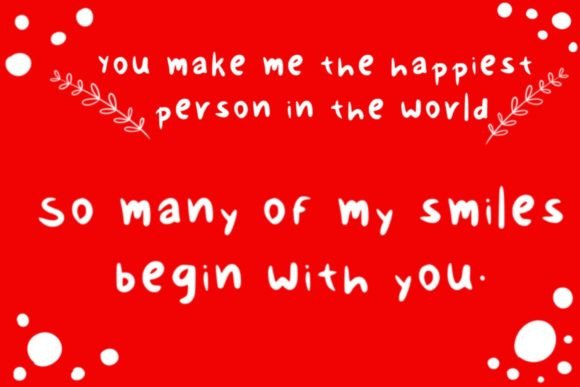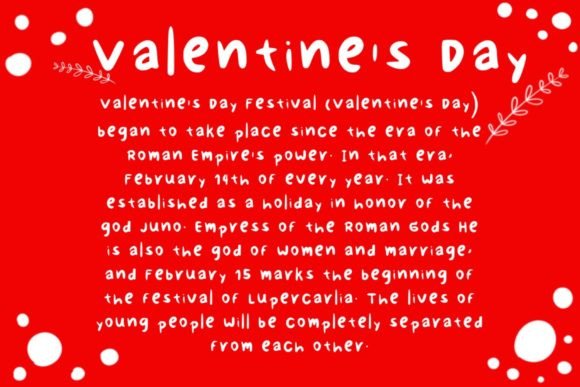
Introduction to Ppeach Font
Have you ever stumbled upon the perfect font while working on a creative project, and suddenly, the whole design comes alive? That’s exactly what happened to me when I discovered the Ppeach Font. Its unique, handwritten style immediately caught my attention, and I knew I had to learn more about it.
The Ppeach Font is a delightful and friendly script that exudes a personal touch. Its simplicity and hand-drawn design make it a valuable resource for designers, adding a warm and approachable feel to any project. Whether you’re crafting invitations, creating social media graphics, or working on a high-quality design, the Ppeach Font is sure to bring a touch of handwritten charm to your text.
With its transparent background and free download availability, the Ppeach Font is an excellent addition to any designer’s toolkit. In this article, we’ll delve into the world of this amazing font, exploring its features and uses, and discovering why it’s a must-have for any creative project.
Key Features of Ppeach Font
- Features a unique and elegant design, making it suitable for various design applications.
- Comes in a transparent background format, allowing for seamless integration into different design elements.
- Supports a wide range of languages, making it a versatile design resource.
Honest Review: Ppeach Font
I recently stumbled upon the Ppeach Font while searching for a high-quality font to use in a creative project. As a designer, I was excited to see what it had to offer.
After downloading the font for free, I was impressed with its smooth and elegant design. The Ppeach Font is perfect for any project that requires a touch of sophistication, and its transparent background makes it easy to work with.
Here are some of the things that work well with the Ppeach Font:
- ✨ Elegant and refined design that’s perfect for creative projects
- ✨ Smooth lines and curves make it a joy to work with
- ✨ Transparent background for easy layering and design flexibility
- ⚠️ Limited character set and support for certain languages
- ⚠️ Not suitable for projects that require a bold or playful font
Overall, I’m impressed with the Ppeach Font and would recommend it to designers looking for a high-quality, elegant font for their creative projects. With a little caution and planning, it can be a valuable resource in your design toolkit.
Design Resource for Your Creative Project
The Ppeach Font is a high-quality design resource perfect for any creative project. It’s a free download that offers a unique and stylish look for your designs. With its transparent background, you can easily integrate it into your design without any background distractions.
Tips for Getting the Most Out of Ppeach Font
To get the most out of Ppeach Font, use it in combination with other design elements to create a cohesive and stylish design. Experiment with different font sizes, colors, and arrangements to find the perfect look for your creative project.
Common Use Cases for Ppeach Font
The Ppeach Font is perfect for a variety of design projects, including graphic design, digital design, and print design. It’s a great choice for anyone looking to add a touch of elegance and sophistication to their designs.